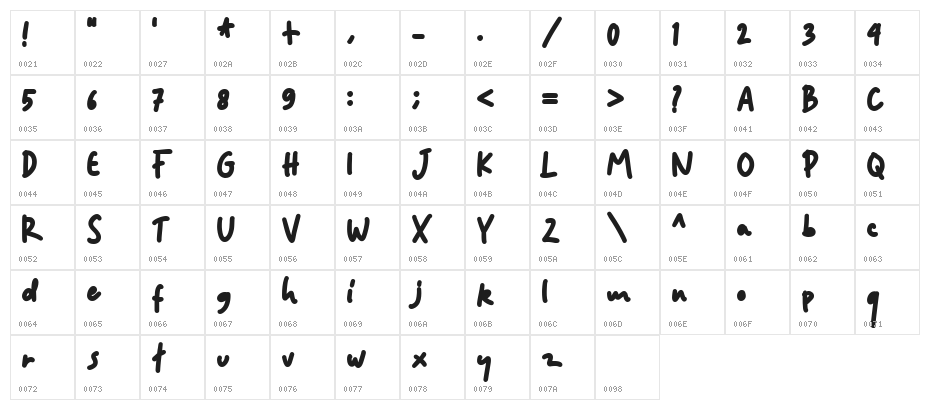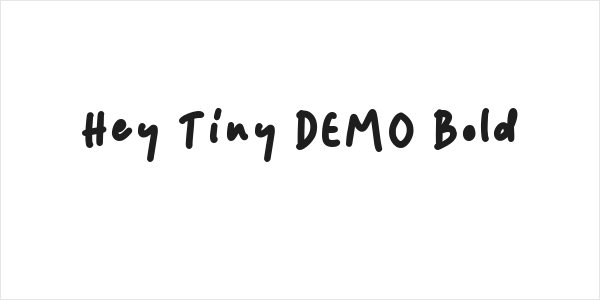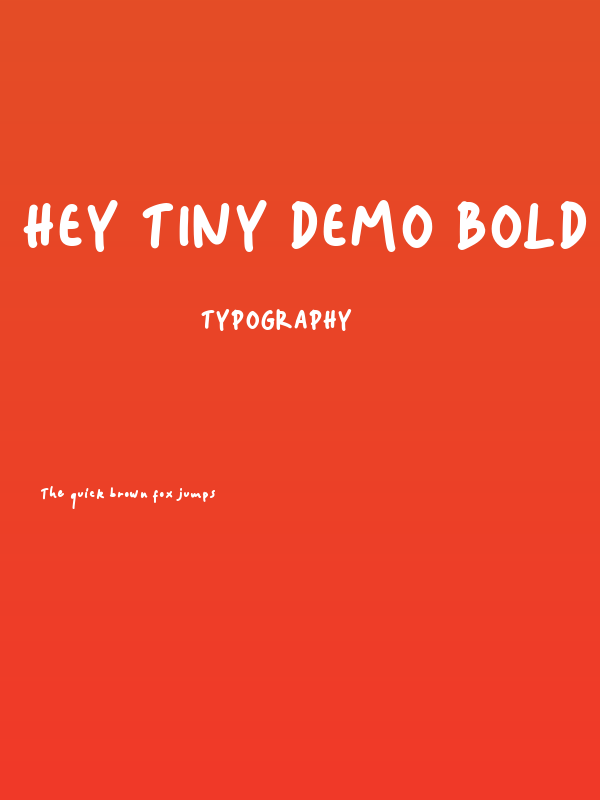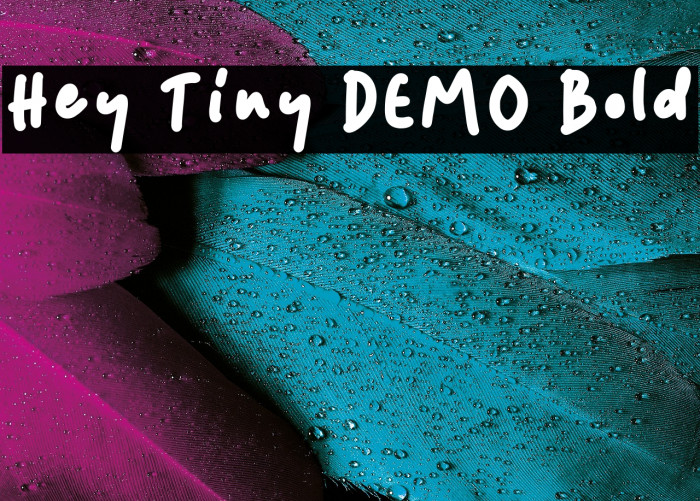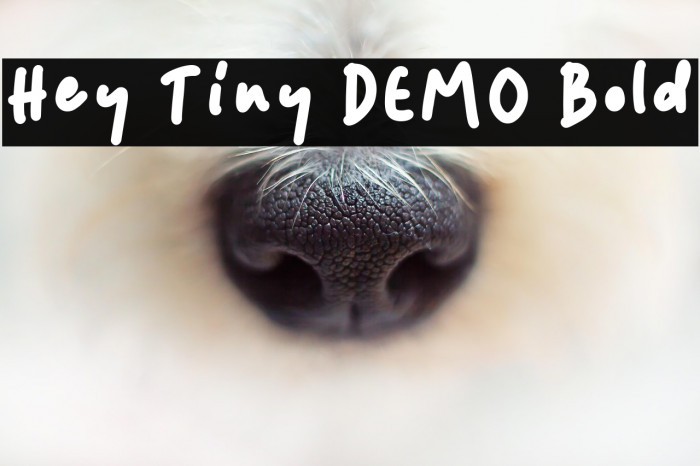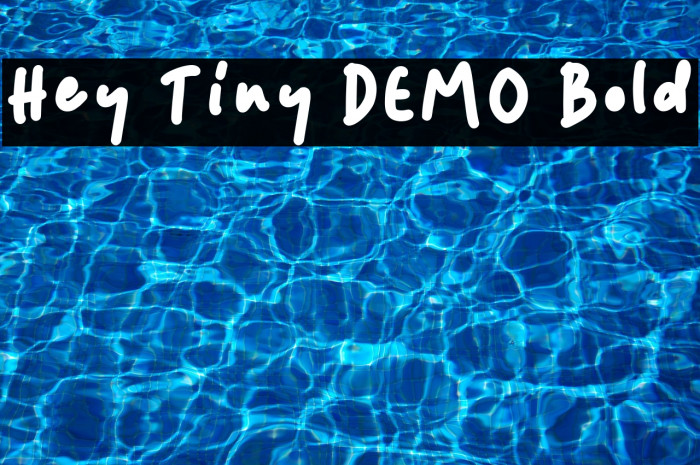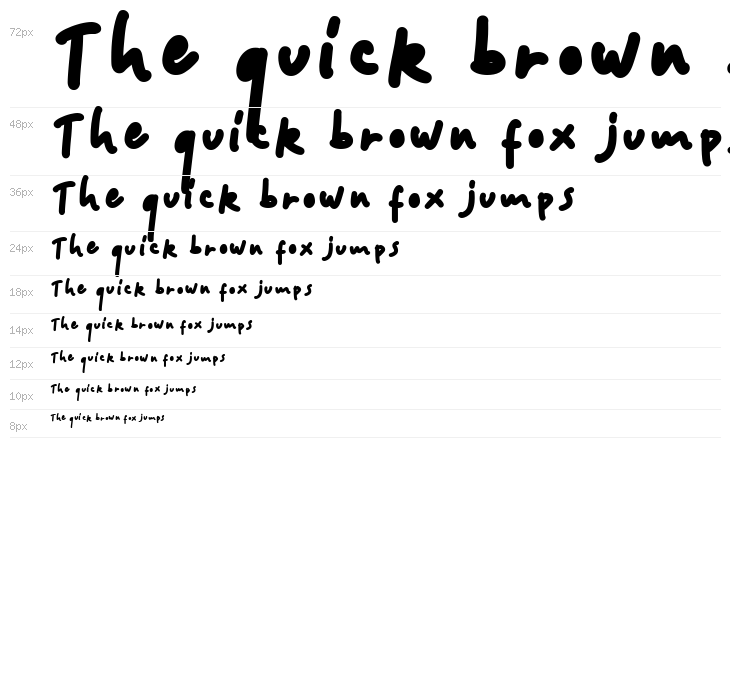
Hey Tiny DEMO Bold Font
Hey Tiny DEMO Bold Description
This font exhibits a playful and casual handwritten style, characterized by its bold and rounded strokes. The letters are slightly irregular, giving it a personal and informal touch, reminiscent of quick, expressive handwriting. The uppercase and lowercase letters maintain a consistent style, with a noticeable emphasis on rounded edges and a slightly uneven baseline, adding to its charm. The numerals and special characters follow the same aesthetic, ensuring a cohesive look across all glyphs. This font's boldness makes it stand out, while its handwritten nature conveys warmth and approachability.
| Use Case | Logos, Headlines, Informal Text |
| Proposed Projects | Ideal for personal branding, greeting cards, children's books, and informal social media graphics. |